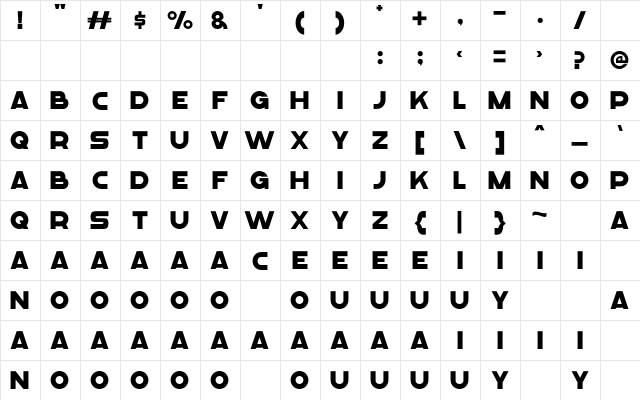
Meltland Demo Bold
| Foundry | Gartype Studio |
| Designer | Gumilang Anggara Ruslan |
Design Context for Meltland Demo Typeface
Meltland Demo offers clean, dependable letterforms without strong stylistic allegiance, making it a practical choice for designers who need flexibility. Its bold stroke weight gives it real presence on the page.